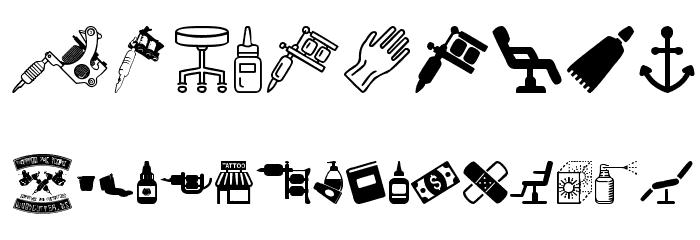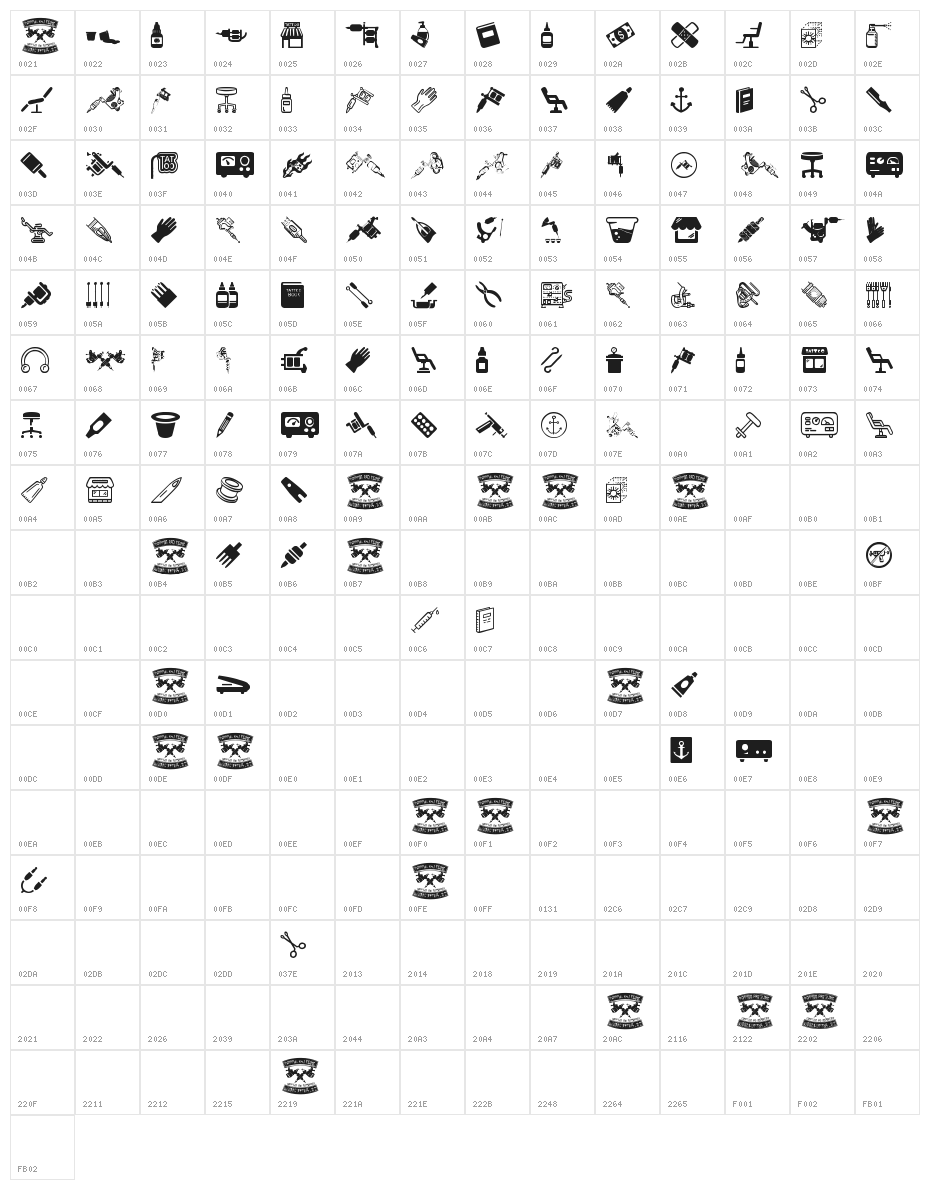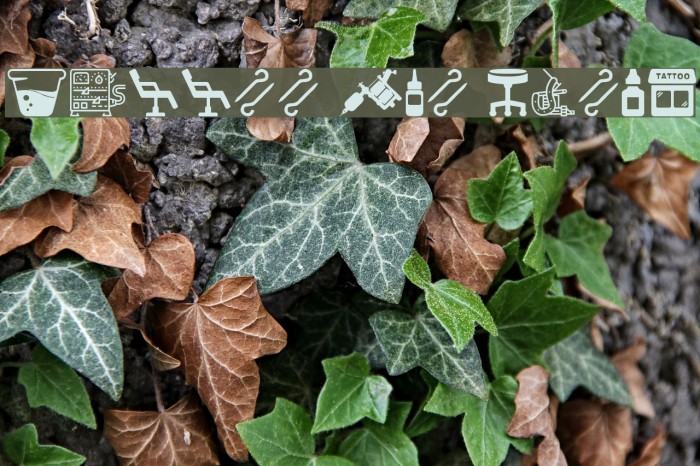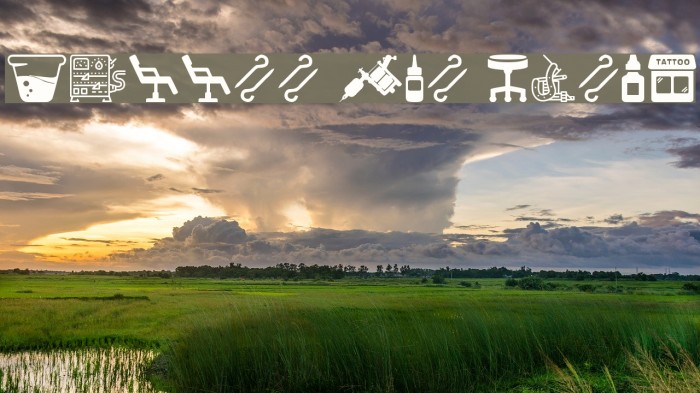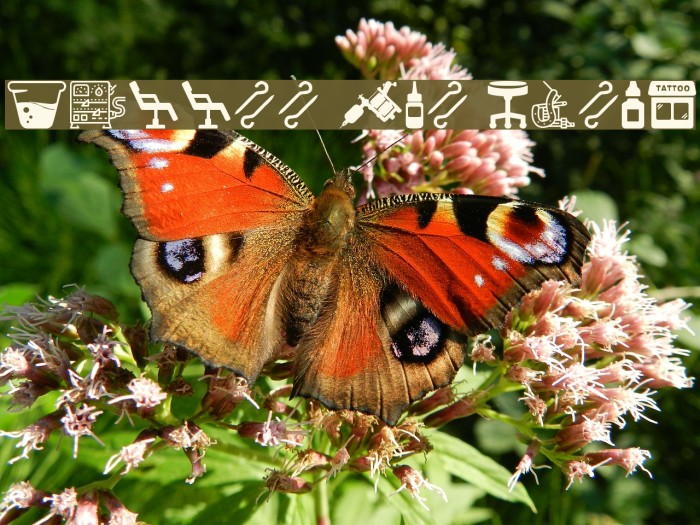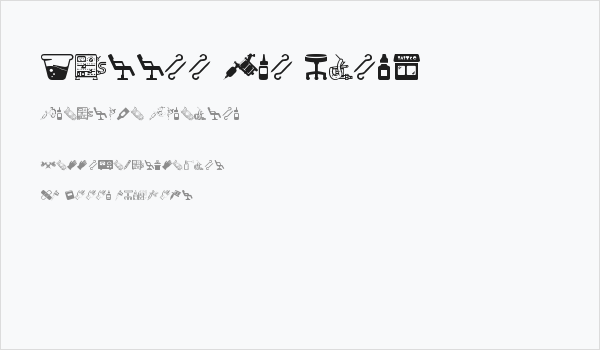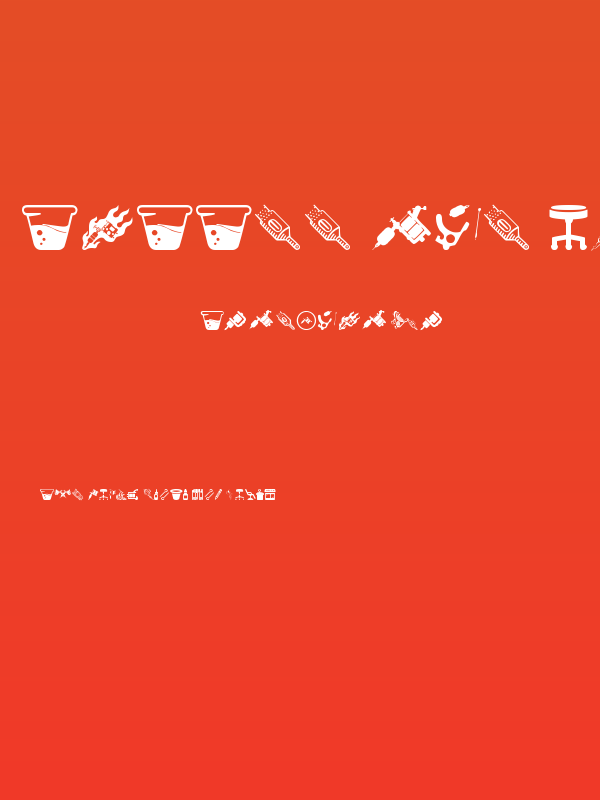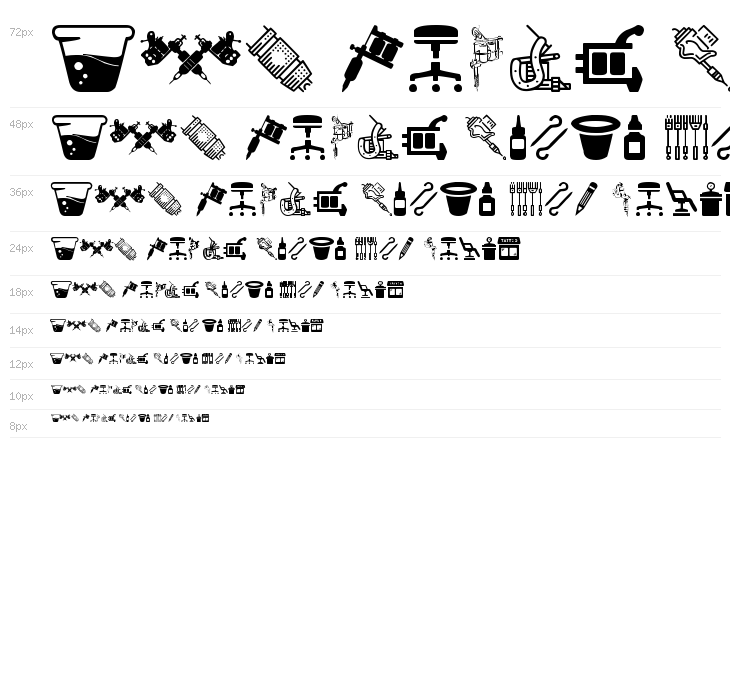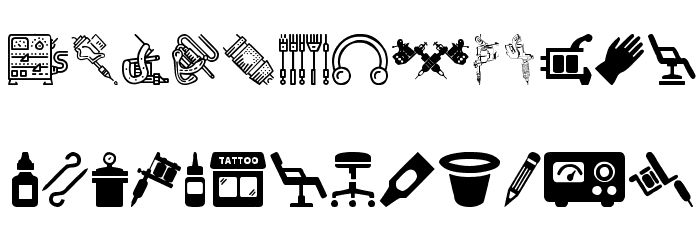
Tattoo Pro Icons Font
Tattoo Pro Icons Description
A collection of tattoo-themed icons featuring tattoo machines, ink bottles, gloves, chairs, needles, and related equipment, rendered in a bold, simplified, and highly recognizable style suitable for signage or digital interfaces.
| Use Case | Icons, Logos, Signage, Digital interfaces |
| Proposed Projects | Tattoo shop branding, signage, app icons, instructional materials, promotional graphics. |